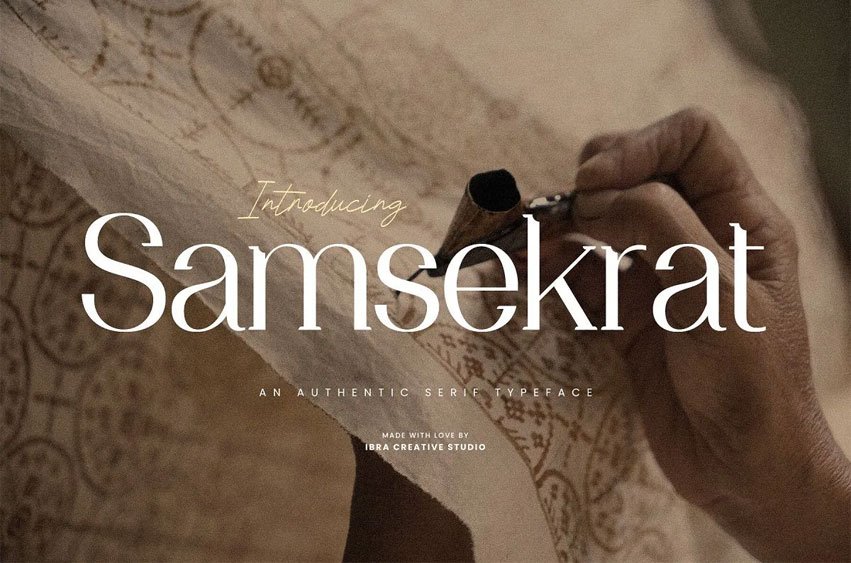
Samsekrat Font is an authentic serif font that exudes timeless elegance and sophistication. With its meticulously crafted letterforms, Samsekrat strikes a harmonious balance between tradition and modernity, making it versatile for a range of design applications.
The serifs are distinct and refined, lending a classic aesthetic to the typeface, while subtle nuances in letter spacing and stroke weights contribute to its overall grace.